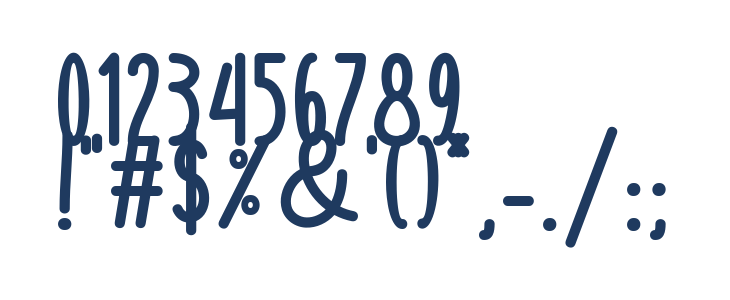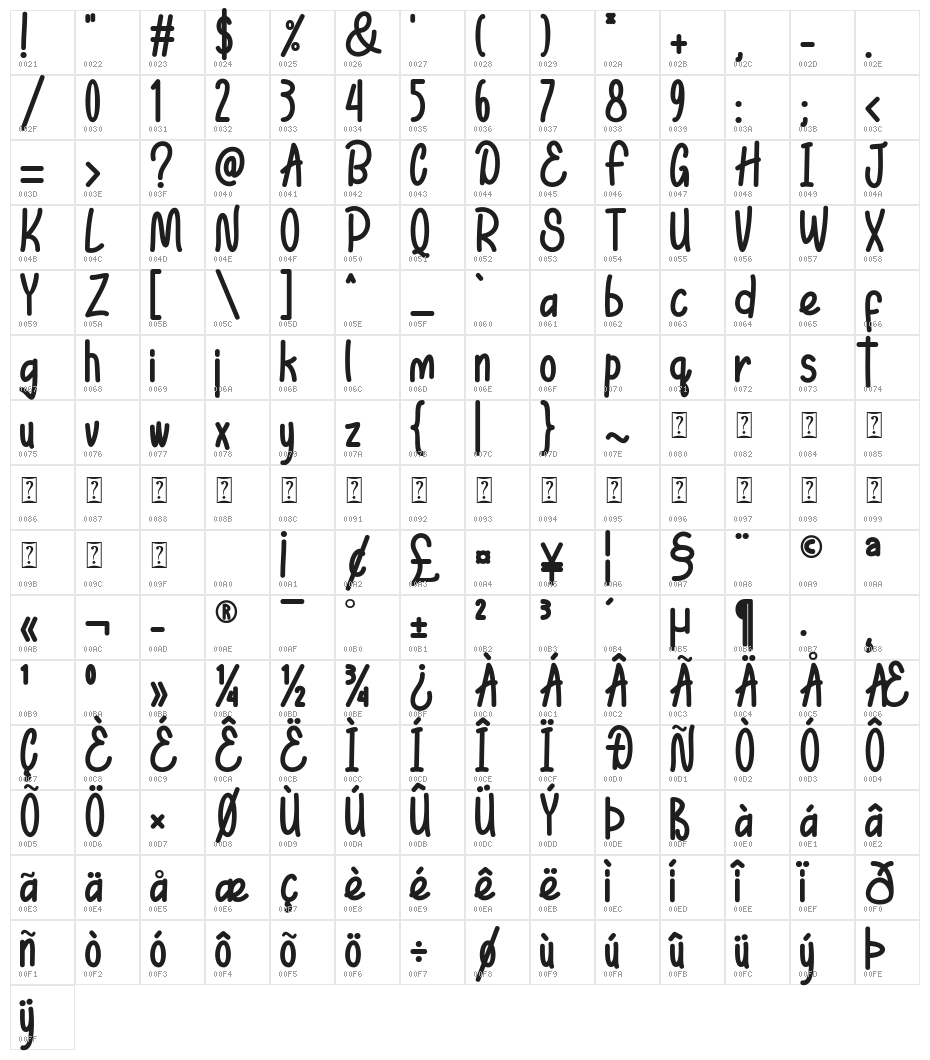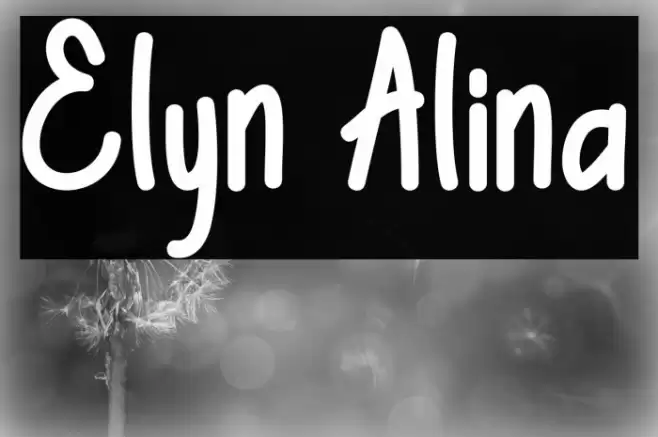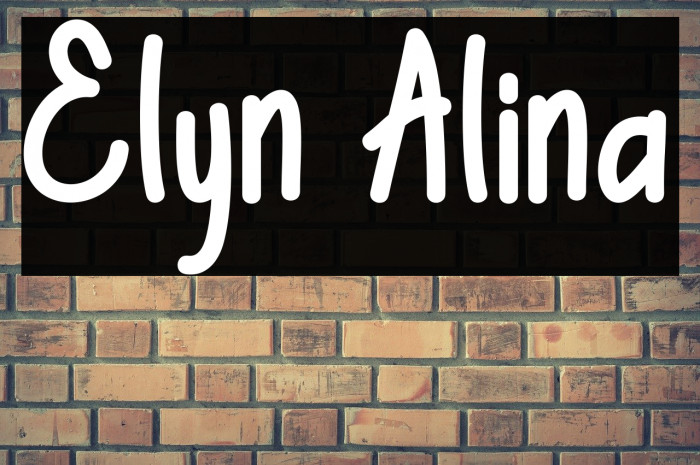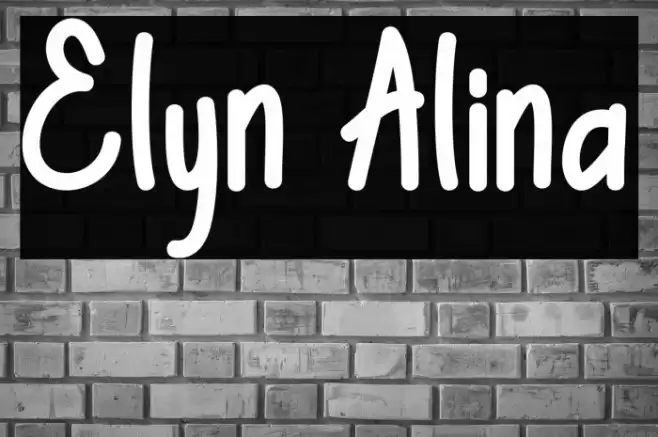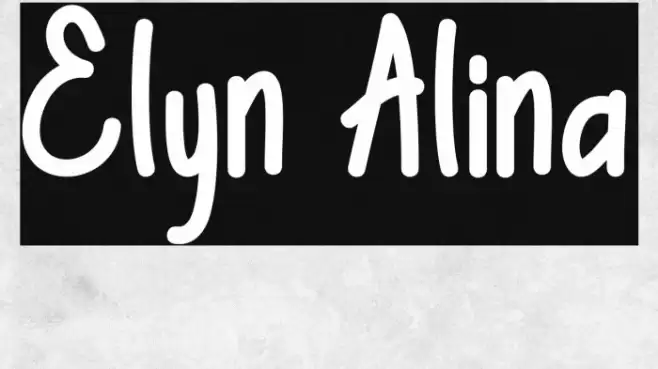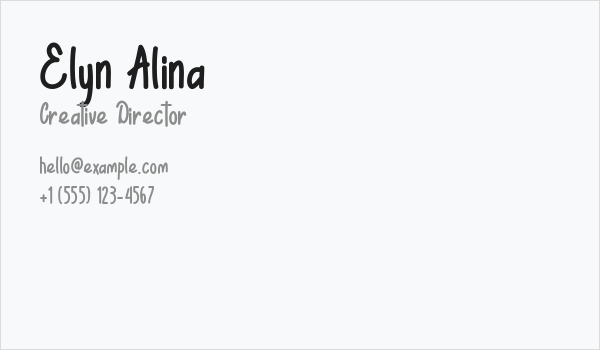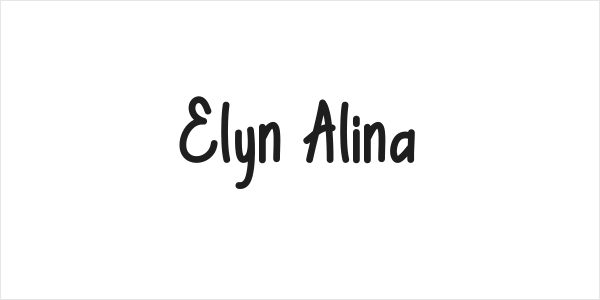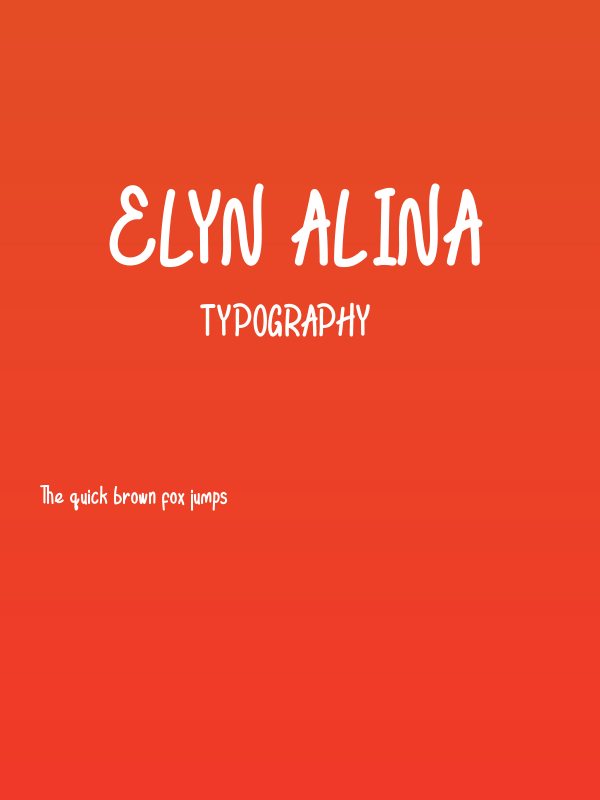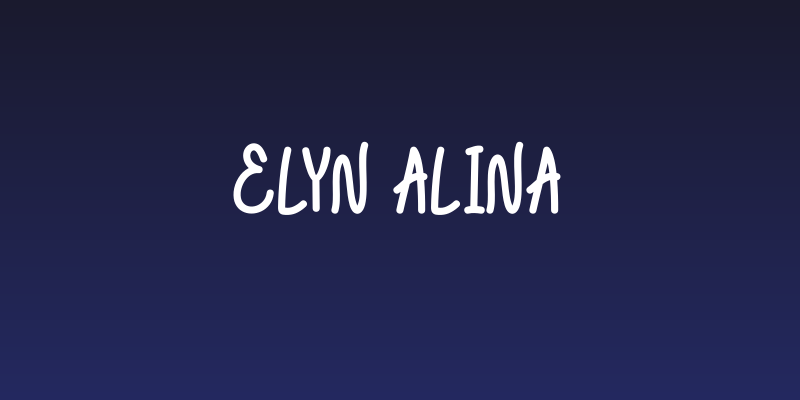
Elyn Alina Font
Elyn Alina Description
This font features a playful and casual handwritten style, characterized by its smooth, rounded edges and slightly irregular letterforms. The uppercase and lowercase letters maintain a consistent flow, giving it a friendly and approachable appearance. The numerals and special characters follow the same design ethos, ensuring a cohesive look across all glyphs. The strokes are moderately thick, providing good readability while retaining a whimsical charm. This font is ideal for projects that require a personal touch, such as greeting cards, invitations, and informal branding.
| Proposed Projects | Greeting cards, invitations, informal branding, children's books, and social media graphics. |